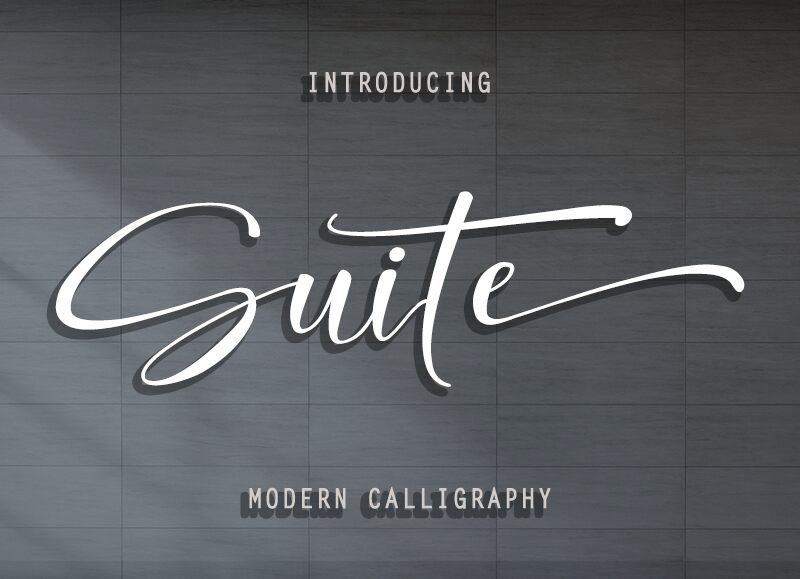
Welcome to Suite - a modern calligraphy font designed by Aditiyo Dwi Putranto. With its light weight and elegant strokes, this font is perfect for projects that require a touch of sophistication and creativity. Its flowing script lends itself well to wedding invitations, branding materials, and social media graphics. The Suite font family also includes variations in bold and regular weights, making it versatile for both print and digital designs. Elevate your next project with the beauty of Suite - the perfect choice for any modern calligraphy lover!